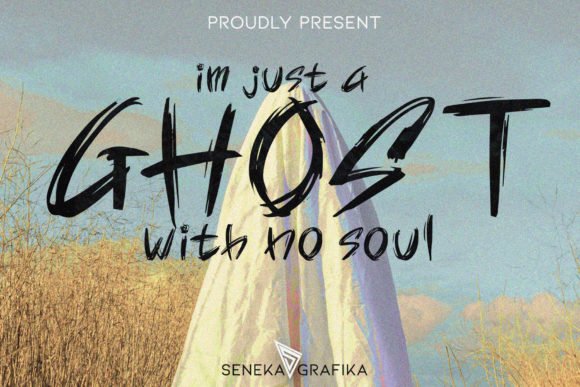
Unleashing the Spooky Charm of Ghost Font
Have you ever stared into the darkness, waiting for the perfect font to bring your Halloween project to life? For designers, the thrill of the creative process is often about finding that elusive spark that sets their imagination ablaze. It’s in these moments of inspiration that we stumble upon fonts like Ghost, a hauntingly beautiful display font that’s sure to send shivers down your spine.
Born from the essence of the mystical apparition, Ghost Font is a masterclass in creating an eerie atmosphere. With its bold characters and otherworldly design, it’s the perfect companion for any horror-themed project. Whether you’re crafting a poster, designing a logo, or creating a spooky postcard, Ghost Font is sure to captivate your audience and leave them spellbound.
- Unique Characteristic: Eroded Effect: Ghost Font features an eerie, distressed look, achieved through a unique combination of letterforms and subtle texture, giving it a hauntingly beautiful appearance.
Ghost Font Review
Overall, I’d say the Ghost Font is a decent choice for designers looking for a unique and attention-grabbing typeface. ✨ One thing that works well is its ability to create a sense of mystery and otherworldliness, which can be perfect for projects that need to convey a sense of eeriness or mysticism.
Another plus is its versatility – the Ghost Font comes in a range of weights and styles, making it suitable for various design applications, from logos to body text. ✨ Additionally, the font is highly customizable, allowing designers to fine-tune the look to suit their project’s specific needs.
However, there are some limitations to consider. ⚠️ Firstly, the Ghost Font may not be the best choice for projects that require a lot of readability or clarity, as the font’s unconventional design can make it difficult to read at smaller sizes. ⚠️ Additionally, the font’s unique style may not be to everyone’s taste, and some designers may find it too edgy or experimental.
Ultimately, the Ghost Font is a good option for designers who want to add a touch of the unknown to their projects. With its unique style and versatility, it’s a great choice for projects that require a sense of mystery or intrigue.
- Unique and attention-grabbing design
- Range of weights and styles available
- May not be suitable for projects that require high readability or clarity
- May not appeal to designers who prefer more traditional fonts
Tips: Use Ghost Font for subtle, eerie text effects. Pair it with bold, contrasting colors to create a striking visual impact.
Tips: Use Ghost Font for creative, artistic typography. Experiment with layer blending modes and effects to enhance the font’s ethereal quality.
Tips: Use Ghost Font for minimalist, modern text effects. Pair it with clean, simple backgrounds to create a sleek visual design.
Ghost Font is perfect for:
- Creativity and inspiration projects.
- Spooky or horror-themed designs.
- Minimalist or modern branding.